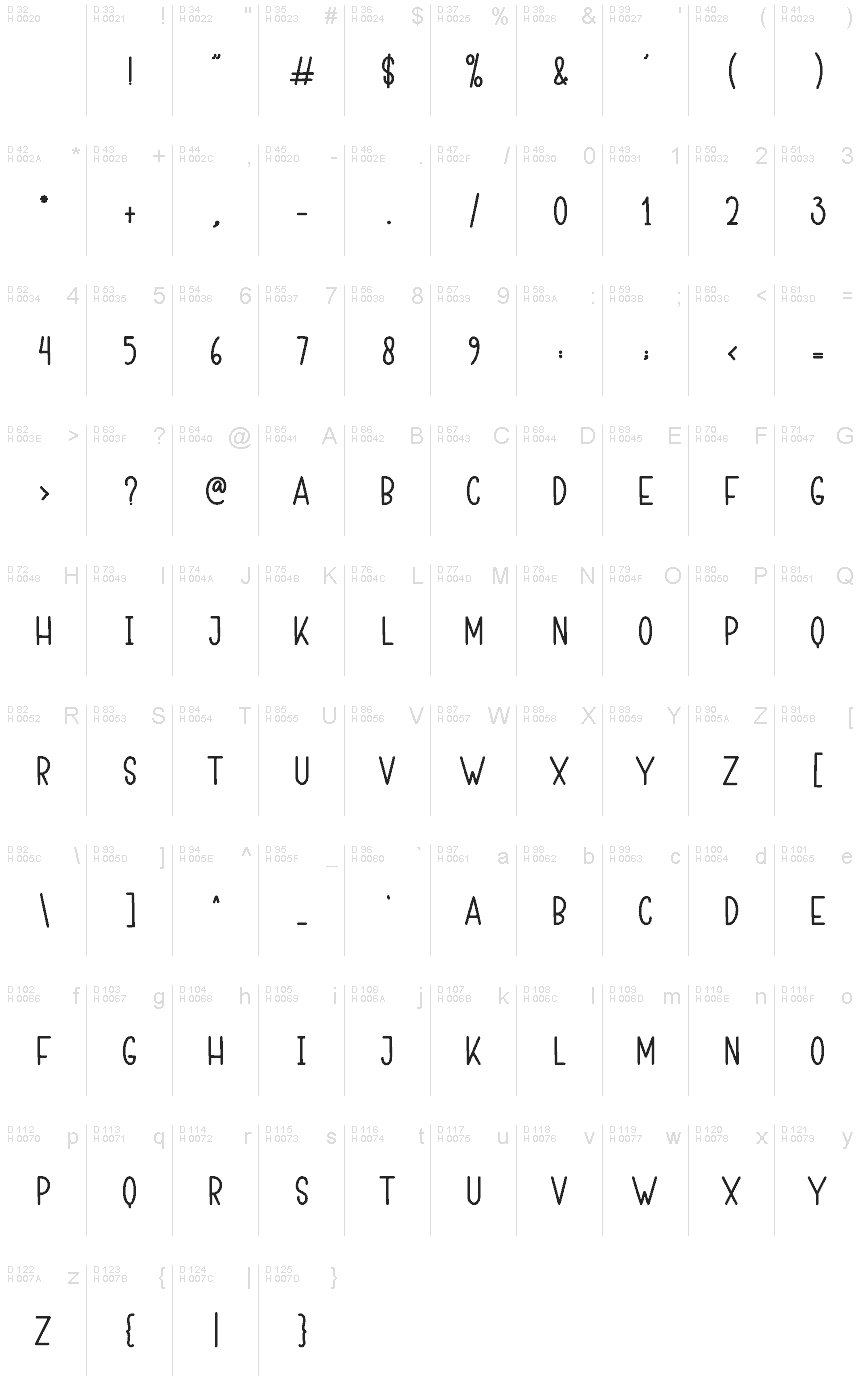
Happy Woman
Ladies and gentlemen, with pleasure we present to you Happy Woman handwritten font created and shared by Andi Moz. This dashing font will undoubtedly come in handy in your multiple typographic design projects and give them an amazing dashing look! So grab this amazing tool and give it a shot!